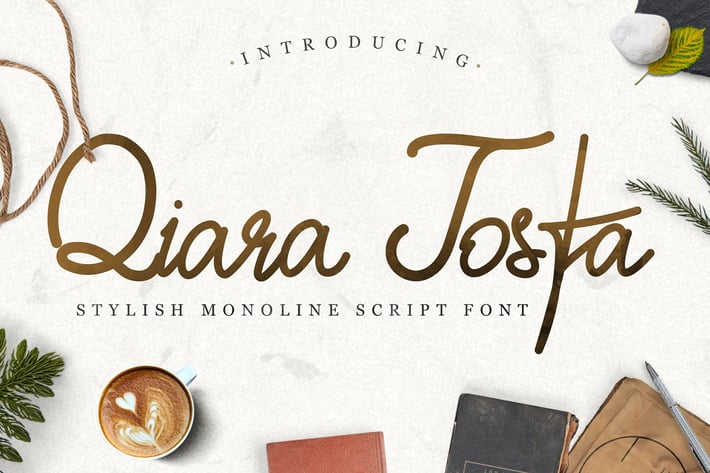
Qiara Tosfa - Handwritten Script Font
Introducing Qiara Tosfa – A Beautiful Handwritten Font. Made with naturally handwritten and modern style, it brings beautiful and modern typeface.
This font is suitable to use as a logo & branding, photography, watermark, social media posts, advertisements, invitation, product designs, label, stationery, wedding designs, product packaging, or anything that need handwriting taste.